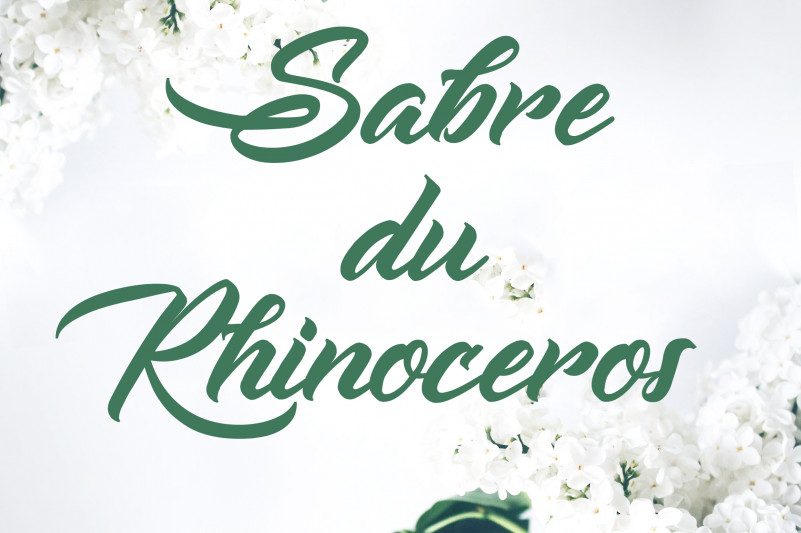
Sabre du Rhinoceros Font
Sabre du Rhinoceros is a handwritten font. It’s characteristic hand look style makes it perfect to use for all you design projects like logos, signatures, packaging design, blog headlines and in all your print projects.